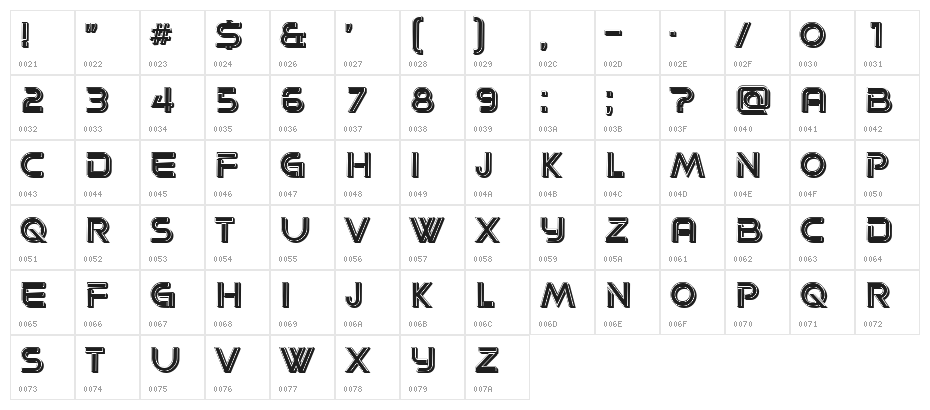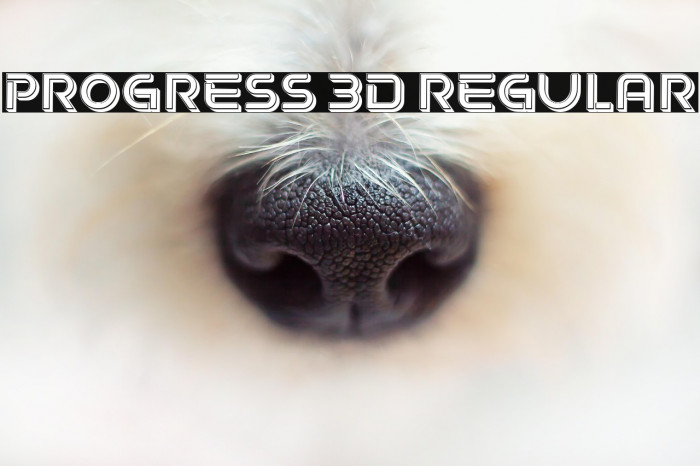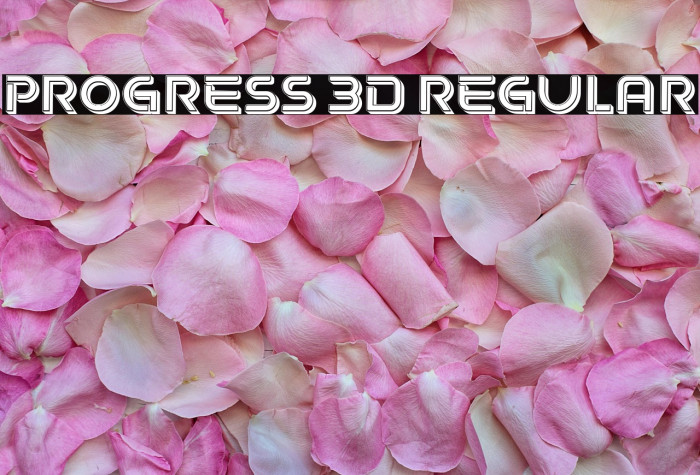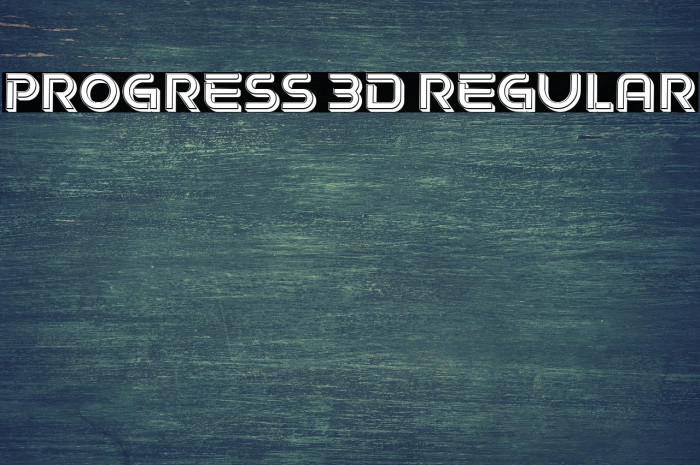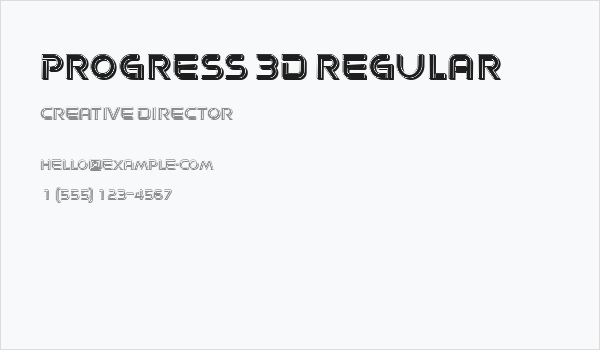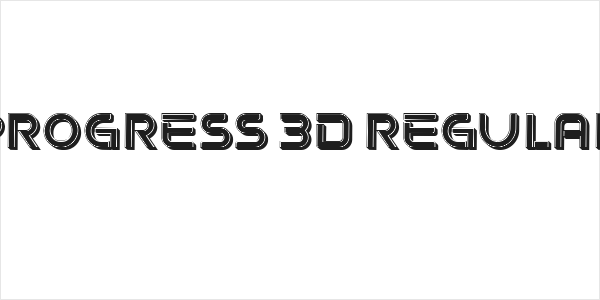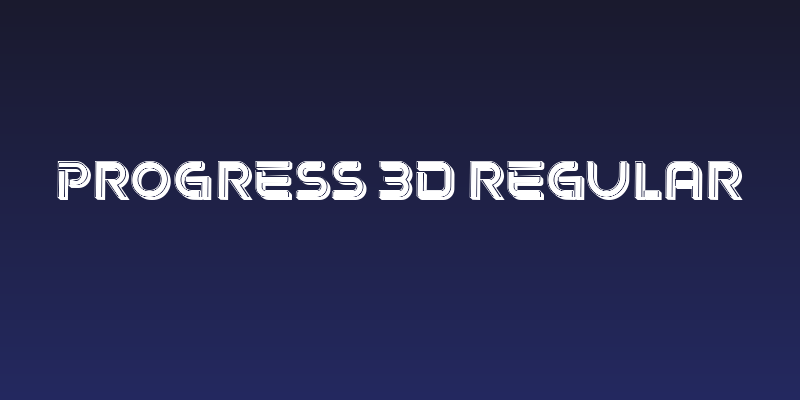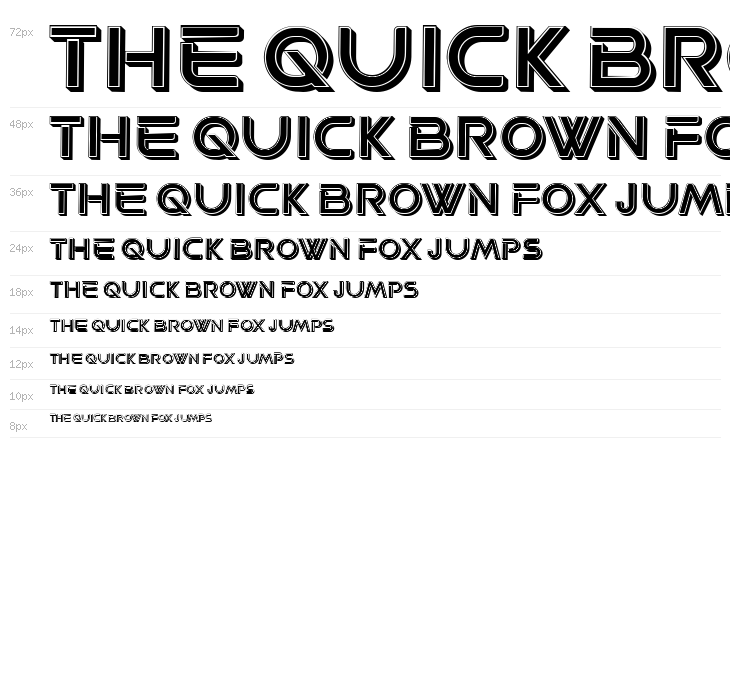
Progress 3D Regular Font
Progress 3D Regular Description
This font features a bold, three-dimensional style with a futuristic and industrial feel. Each character is outlined with a thick border, creating a shadow effect that adds depth and dimension. The geometric shapes and clean lines give it a modern and structured appearance, making it stand out in any design. The uppercase letters are uniform in height, while the numbers and special characters maintain the same bold and impactful style. This font is perfect for projects that require a strong visual presence and a contemporary edge.
| Proposed Projects | Ideal for branding, posters, video game titles, and sci-fi themed designs. |